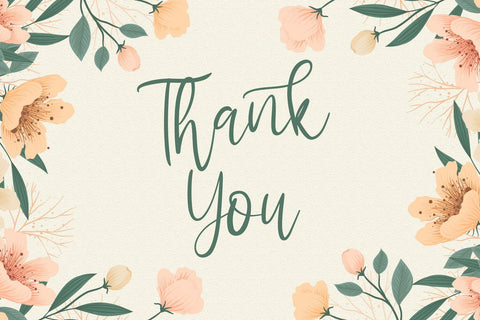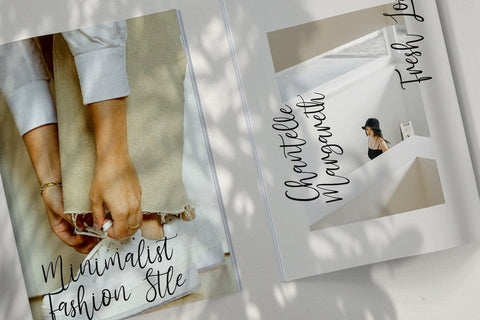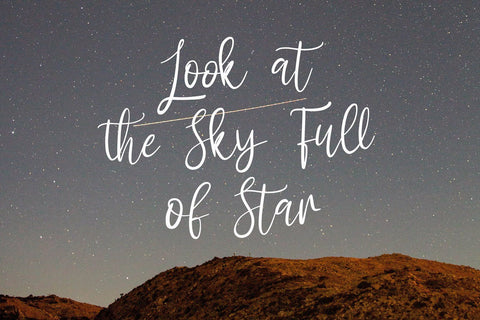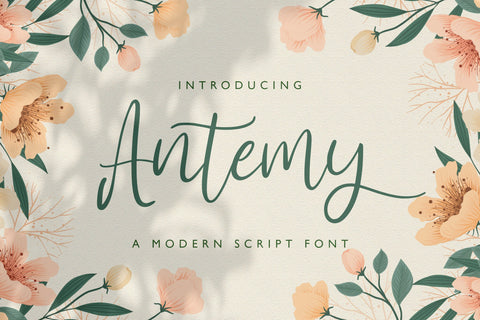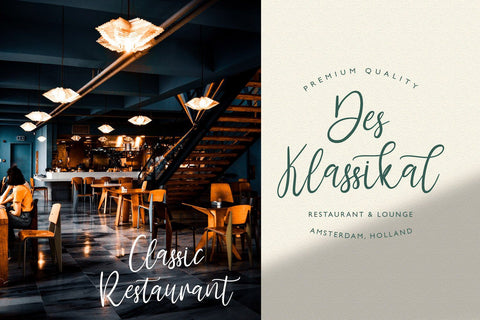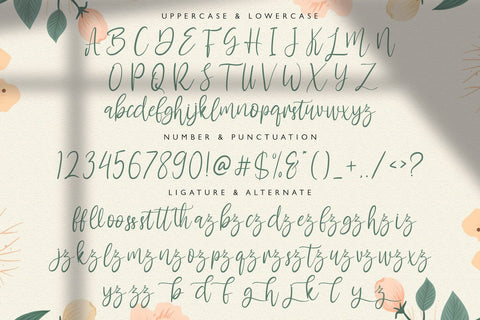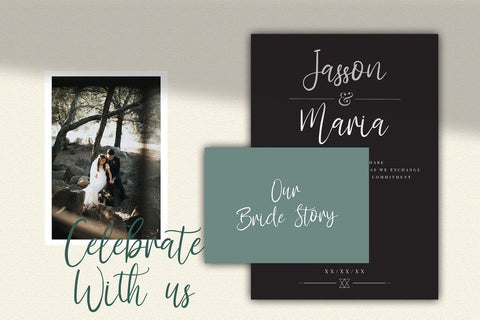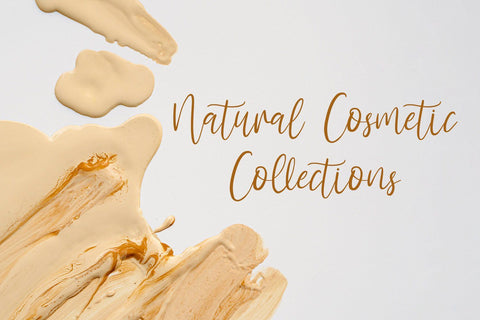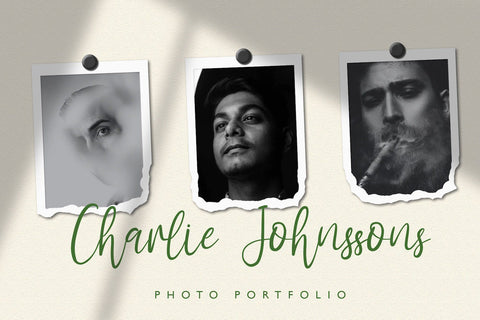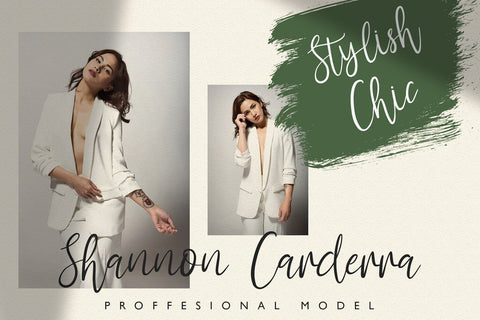
Antemy - Modern Script Font
Introducing Antemy - Modern Script Font
Antemy is a modern script font. It will elevate a wide range of design projects to the highest level, be it branding, headings, wedding designs, invitations, signatures, logos, labels, and much more! This font is PUA encoded which means you can access all of the glyphs and swashes with ease!
- Stylistic Alternates